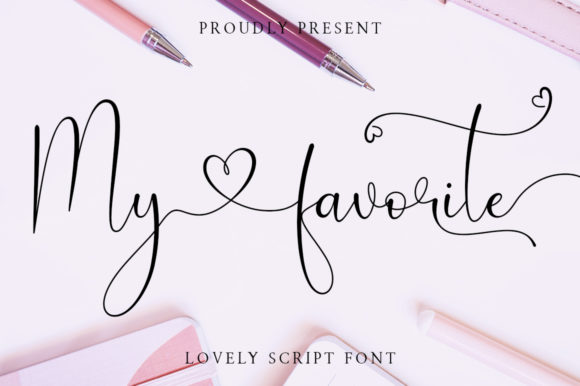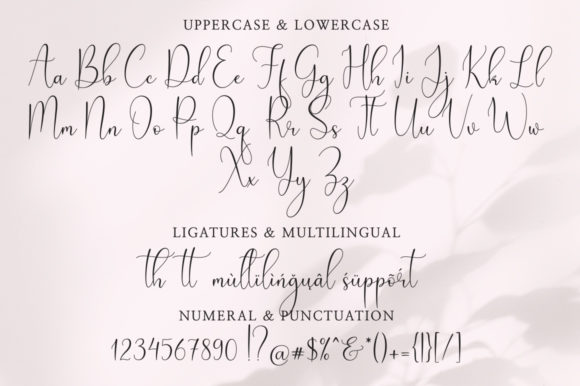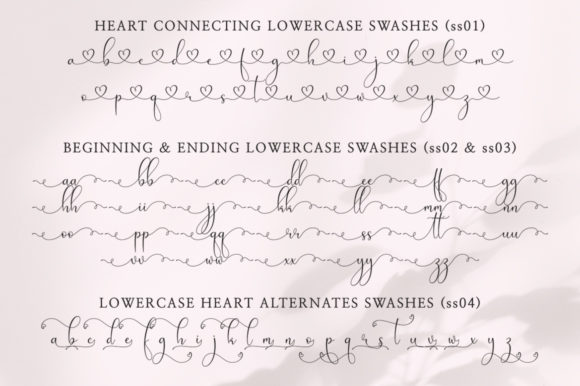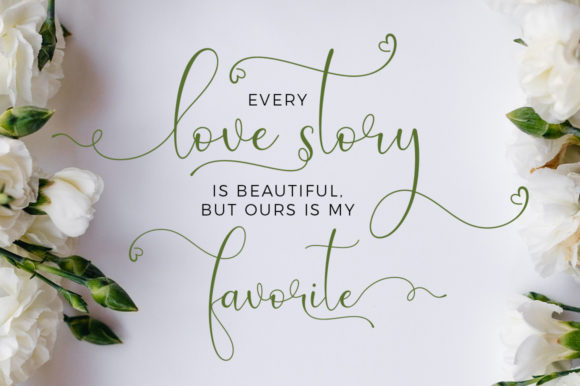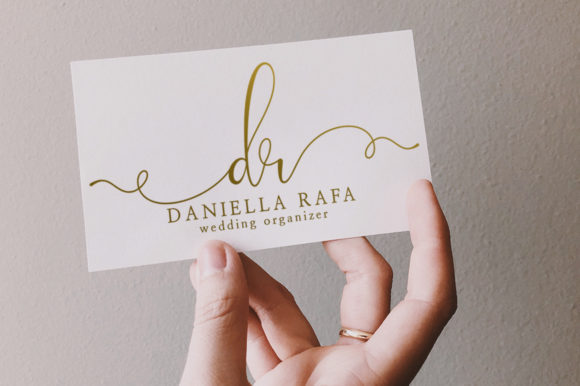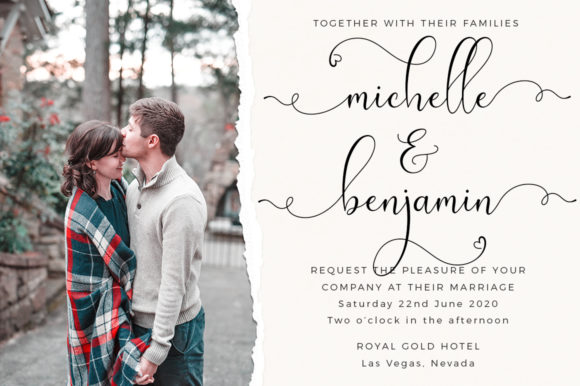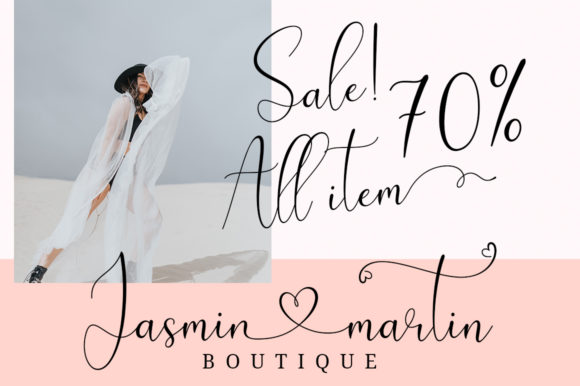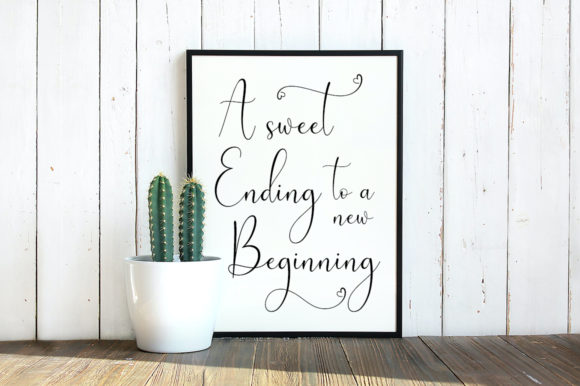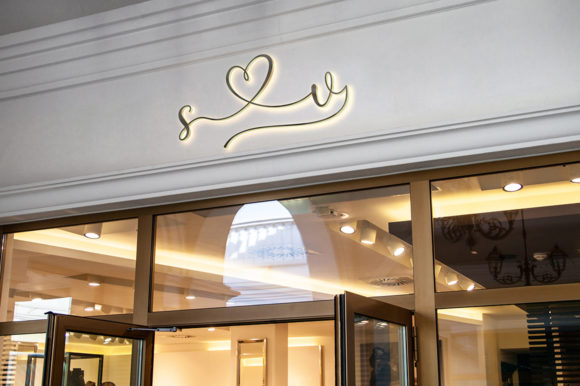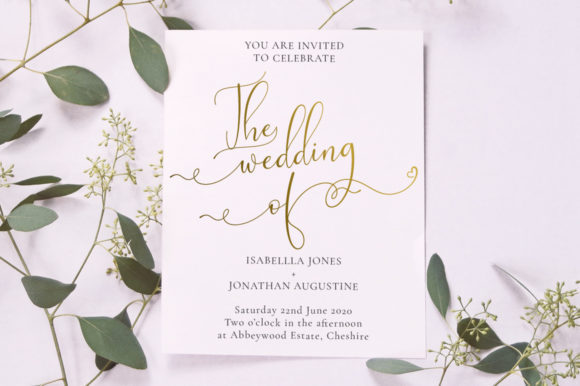
My Favorite Font
About My Favorite Font
My Favorite” is a superb calligraphy font that exudes a sense of modern elegance. Standing tall among its peers, this unique font breathes a sophisticated yet warm and personal touch to any design. Rooted in the artistic tradition of handwritten scripts, “My Favorite” offers the perfect blend of classic and contemporary, making it an ideal choice for a plethora of applications.
In the world of wedding invitations, “My Favorite” truly shines. The swirls and curves of its letters bring out an endearing charm that is sure to capture the hearts of couples and guests alike. The modern calligraphy effortlessly transforms a simple wedding invitation into a work of art, imbuing each card with a sense of luxury and romance that sets the tone for the memorable occasion.
Thank you cards, too, take on a new level of meaning with “My Favorite.” The font’s distinct style communicates heartfelt gratitude with a personal touch. The letters seem to dance on the paper, capturing a genuine and sincere expression of appreciation in every curve and line.
With “My Favorite,” quotes aren’t just spoken words – they become visual masterpieces. The expressive calligraphy font breathes life into the text, making each word resonate with the reader. Whether it’s an inspiring quote to start the day or a meaningful message to ponder, “My Favorite” elevates its emotional impact.
The magic of “My Favorite” isn’t limited to personal use. In the business world, it’s a powerful tool for branding. On logos and business cards, the font’s modern aesthetics send a clear message of a brand’s commitment to innovation while retaining a touch of tradition and humanity. The elegant calligraphy sets the brand apart, creating a lasting impression in the minds of clients and partners.
Ease of use is also a key highlight of “My Favorite.” The font is PUA encoded, which means that all its glyphs and swashes are easily accessible. This feature allows designers, both professional and amateur, to maximize the font’s potential in their designs.
In a nutshell, “My Favorite” is more than a calligraphy font; it’s a testament to the power of handwritten touch in a digital age. With its modern charm and easy accessibility, it continues to enchant and inspire in every design it graces